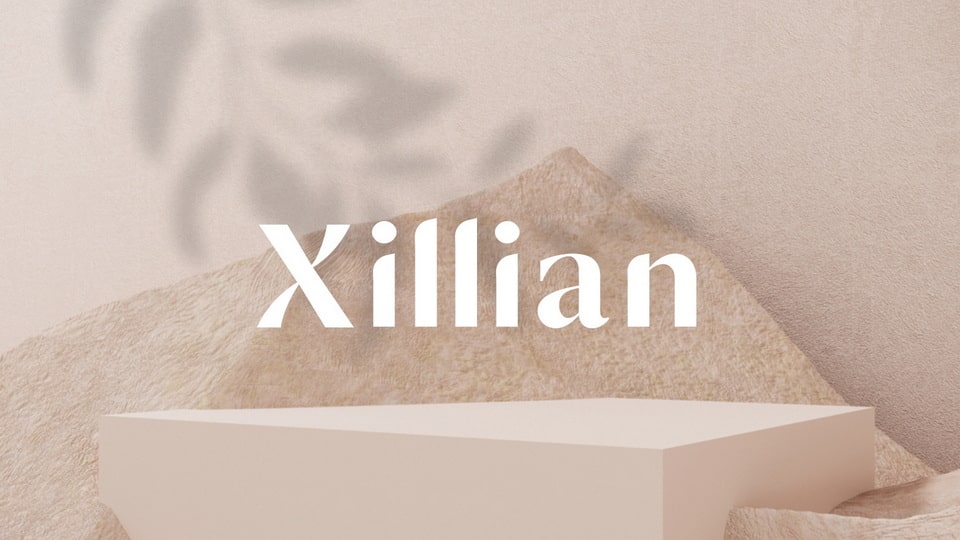
Download Xillian font, a modern and elegant sans serif typeface, specially designed for haute couture projects. Xillian font is perfectly suitable for creating fashionable, bold design such as title, magazine, social media, and more.
Designer: Tanveer Khan